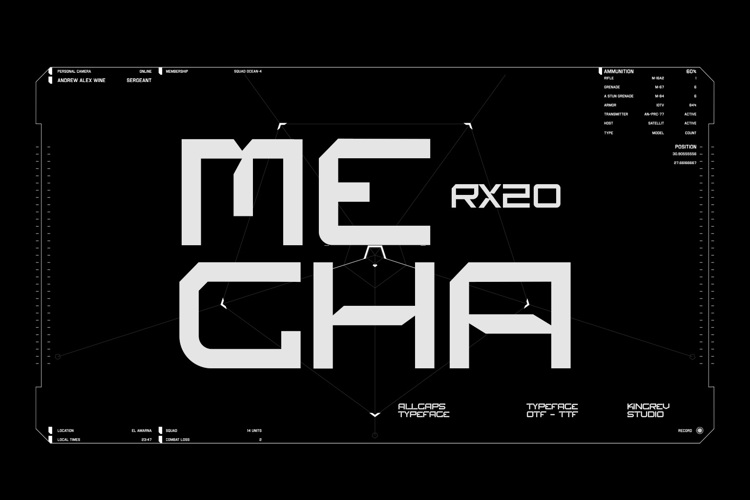
MECHA RX 20 Font
About MECHA RX 20 Font
Mecha RX20 - Display Font
Mecha RX20 Display Font suitable for logos, posters, sport, modern advertising design, product labels, t-shirts, youtube thumbnail/cover, poster quote, editorial design, book / cover Title, website / blog, social media post, packaging designs and other designs.